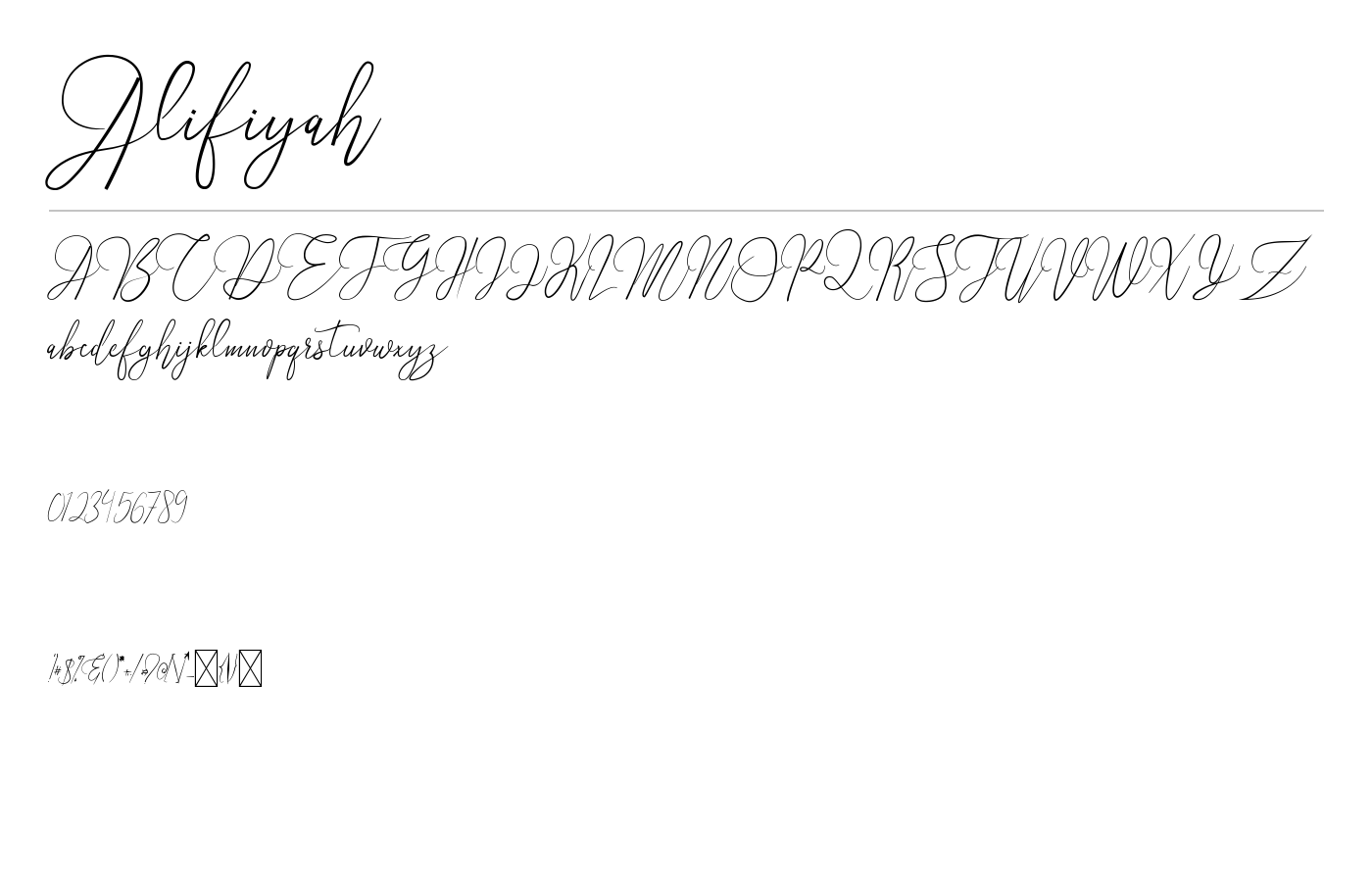
Alifiyah is a delicate and elegant script font characterized by its thin, flowing strokes and graceful curves, giving it a refined and sophisticated feel. Its tall, narrow letterforms with high contrast between thin lines create an airy, luxurious appearance perfect for wedding invitations, branding, and upscale editorial designs. This font works best for headlines and decorative text where a touch of elegance and femininity is desired.
Alifiyah Font
About Alifiyah Font